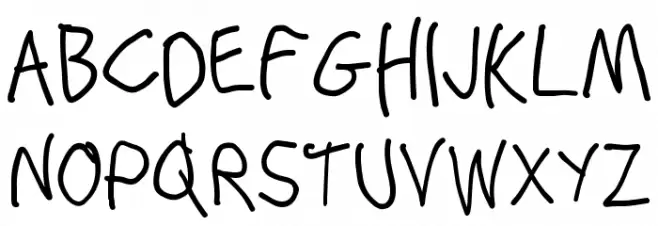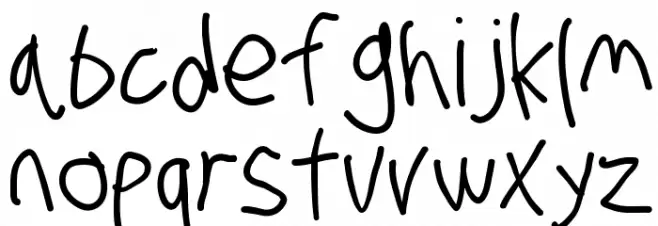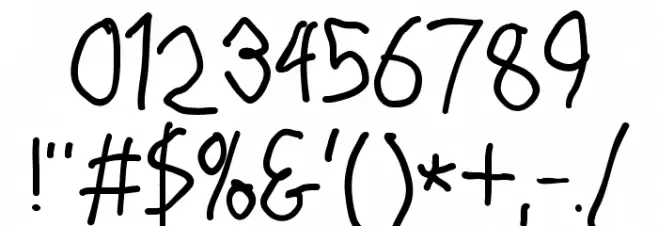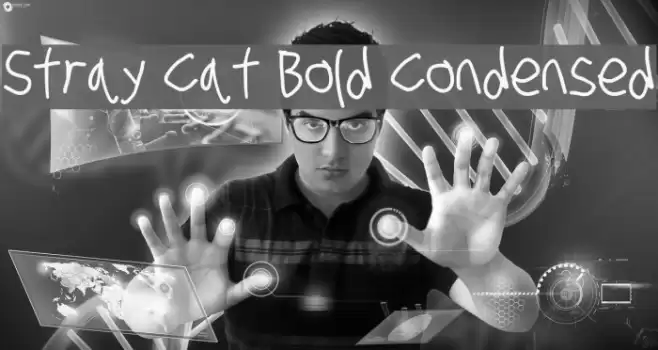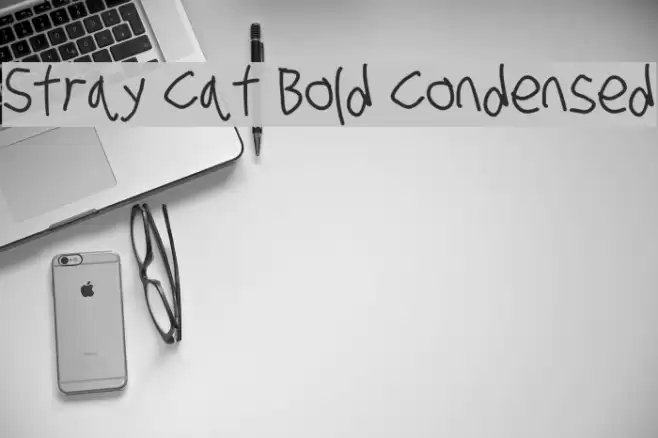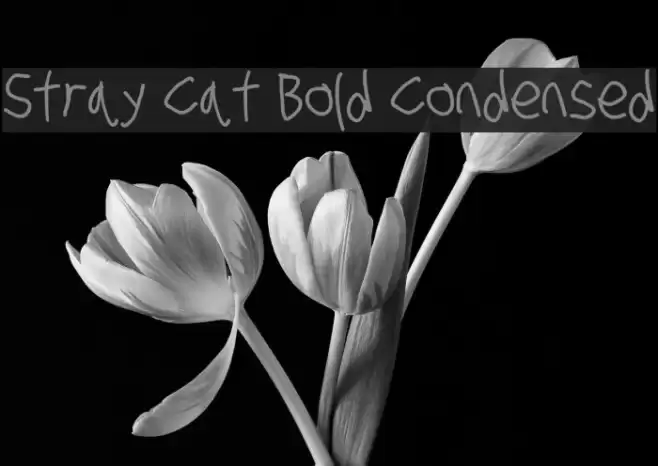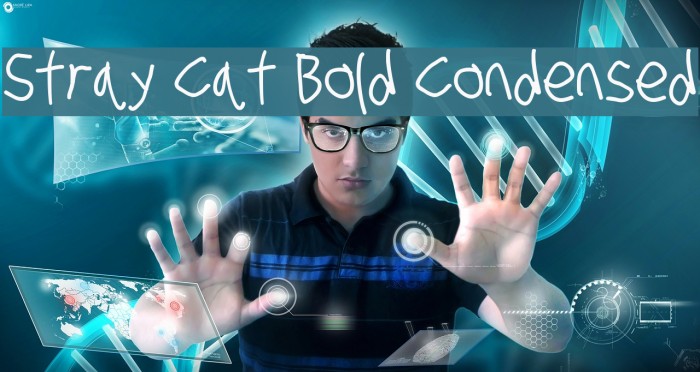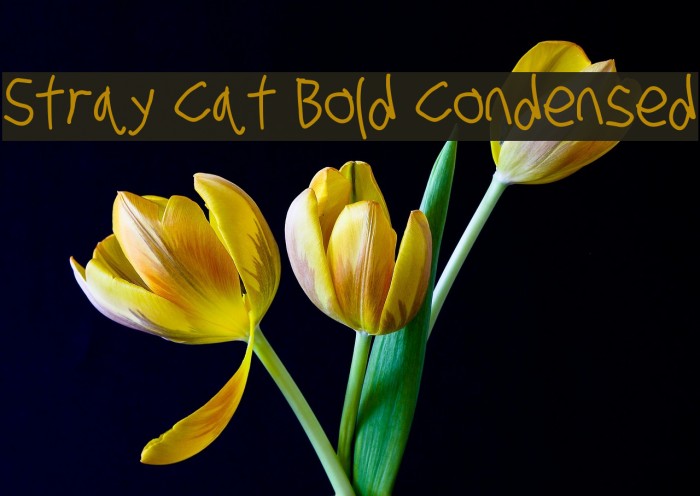
Stray Cat Bold Condensed
This font features a playful and casual handwritten style, characterized by its bold and condensed letterforms. The strokes are uneven, giving it a dynamic and lively appearance. The uppercase and lowercase letters maintain a consistent style, with rounded edges and a slightly irregular baseline, enhancing its informal and approachable feel. Numbers and special characters follow the same aesthetic, making it versatile for various applications. The overall impression is one of spontaneity and creativity, suitable for projects that require a personal touch.
A bold, condensed handwritten font with a playful and casual style.
- Proposed Projects: Ideal for greeting cards, children's books, casual branding, and social media graphics.
- Width: Condensed
- Overall Style: Casual
- Use Case: Logos, Headlines, Informal Text